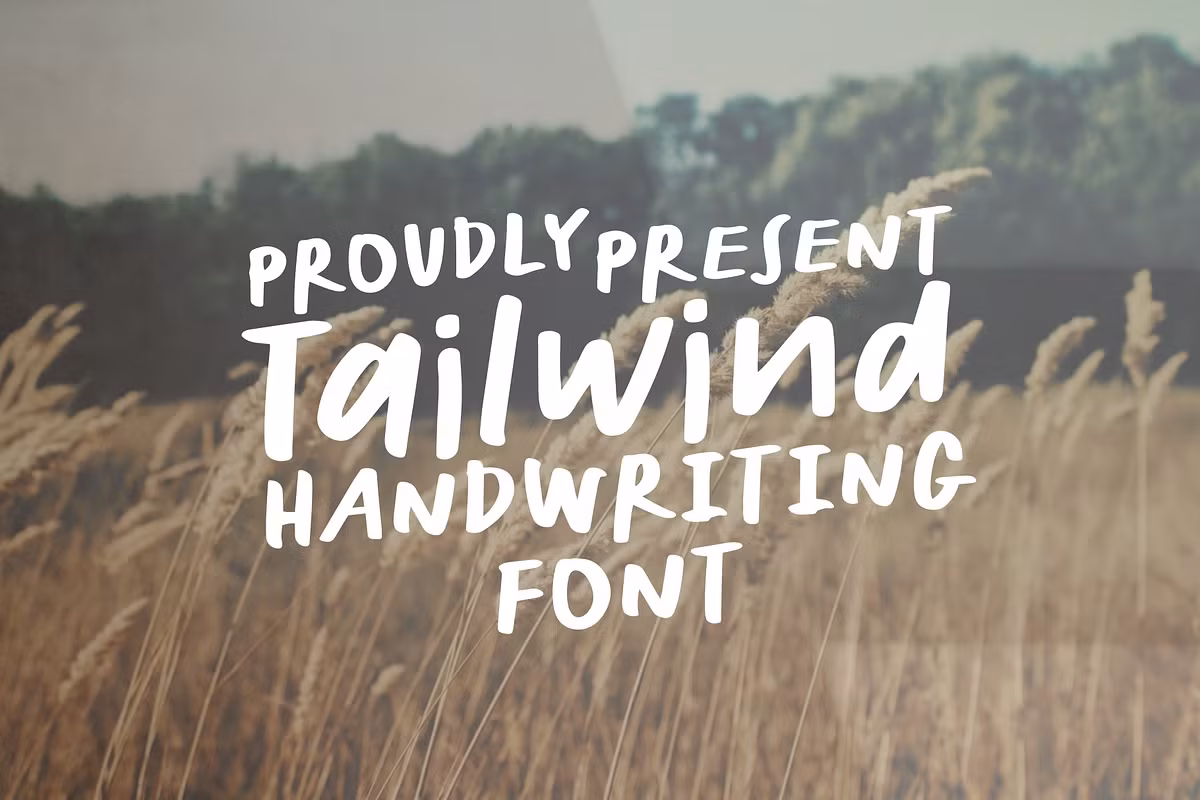
Tailwind Natural Handwritten Font Free Download is a charming, organic typeface with a flowing, handwritten style. Its natural and fluid strokes give it a personal, authentic feel, making it perfect for designs that require warmth and individuality, such as greeting cards, invitations, personal branding, social media posts, and creative projects.
With its casual yet polished appearance, Tailwind provides a perfect balance between readability and personality. Whether you’re designing a logo, crafting a heartfelt message, or adding a handwritten touch to your designs, this font brings a friendly and inviting atmosphere.